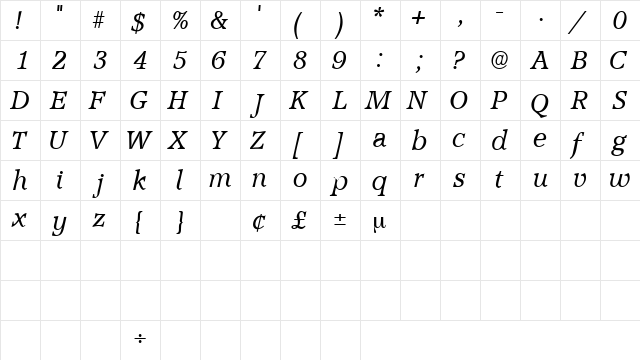
ConsoDisplaySSK Italic
Design Context for ConsoDisplaySSK Typeface
ConsoDisplaySSK is built around its visual character rather than neutral utility — its distinctive forms are designed to make an impression at display sizes. The dynamic lean of this cut emphasises speed and emphasis in any layout.
Font Pairing: Pair with a clean neutral sans-serif for body copy to let ConsoDisplaySSK's character lead without overwhelming the composition.
Pro Tip: Treat ConsoDisplaySSK as the centrepiece of your typographic hierarchy. One strong heading set in a decorative face can carry an entire layout.